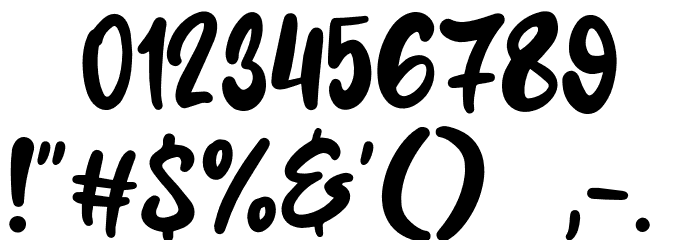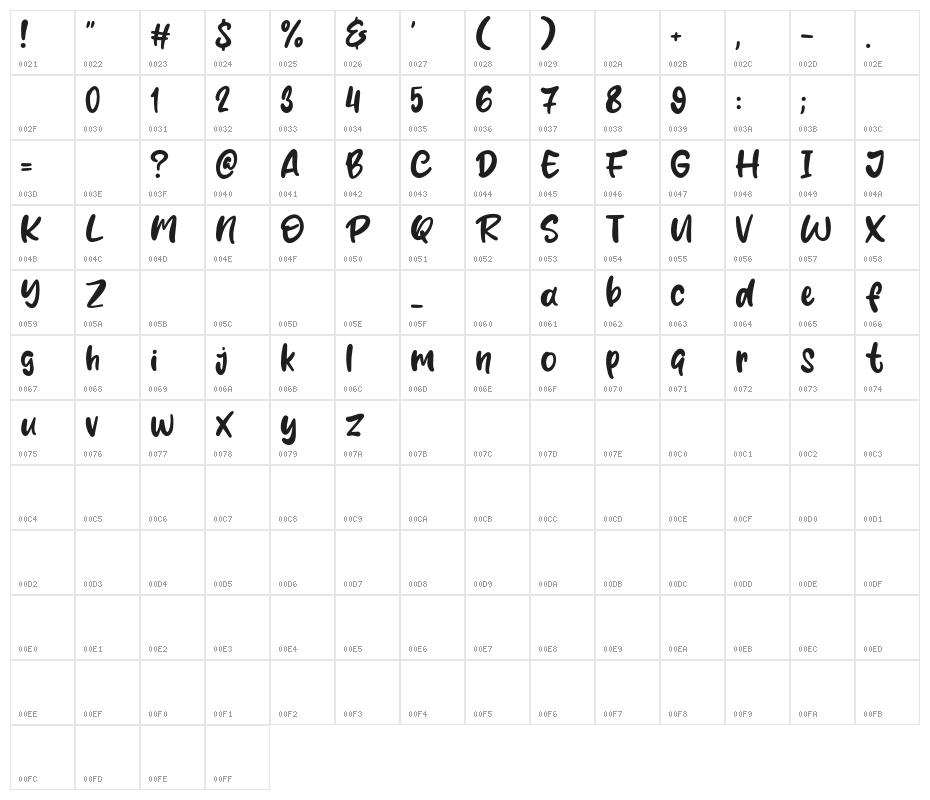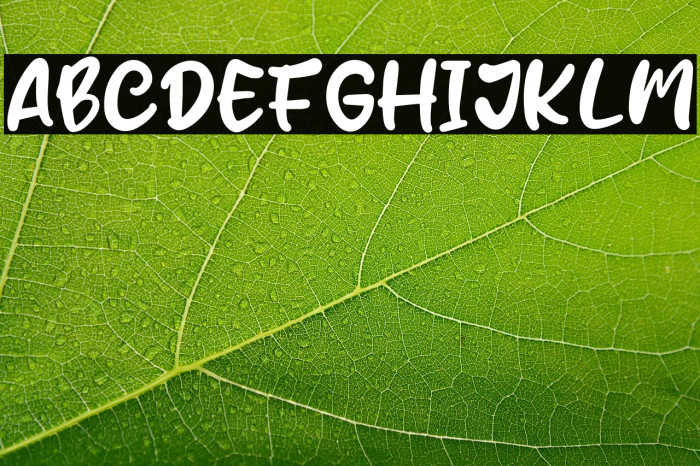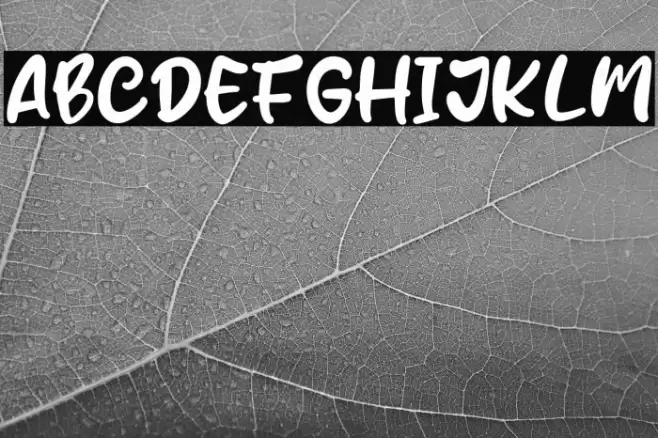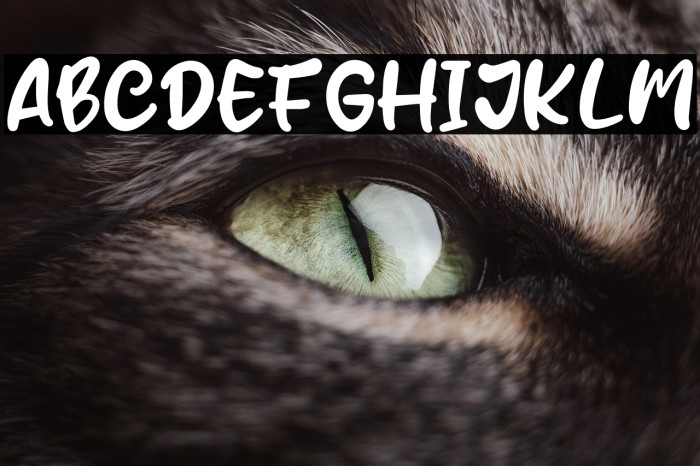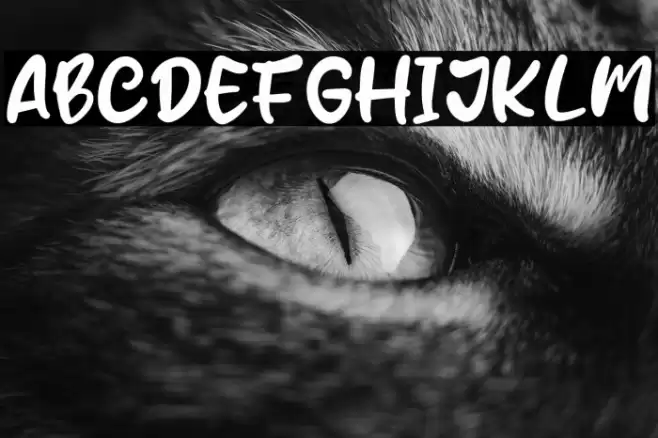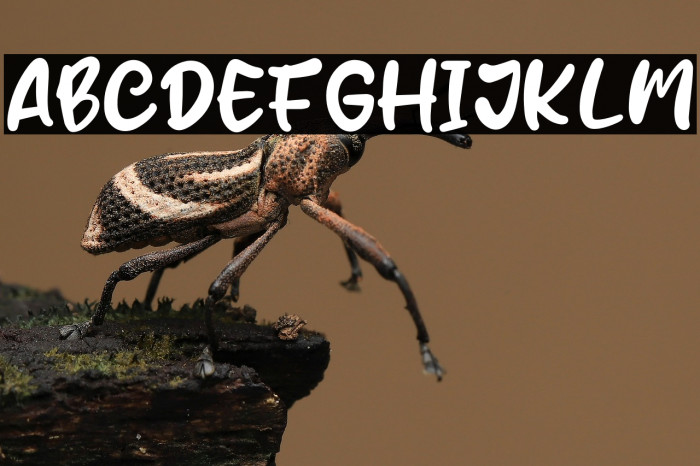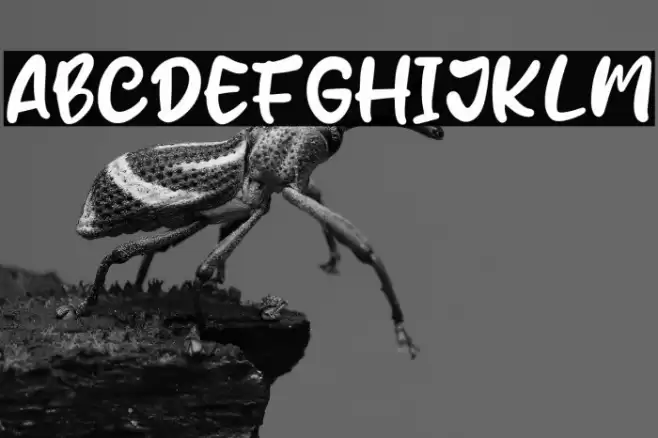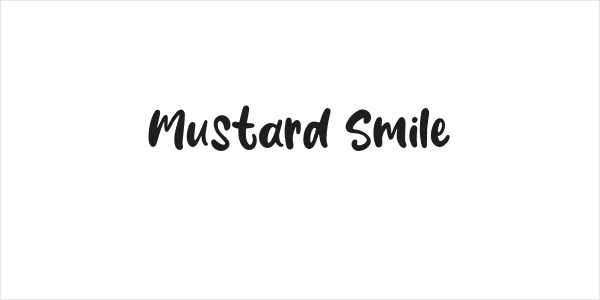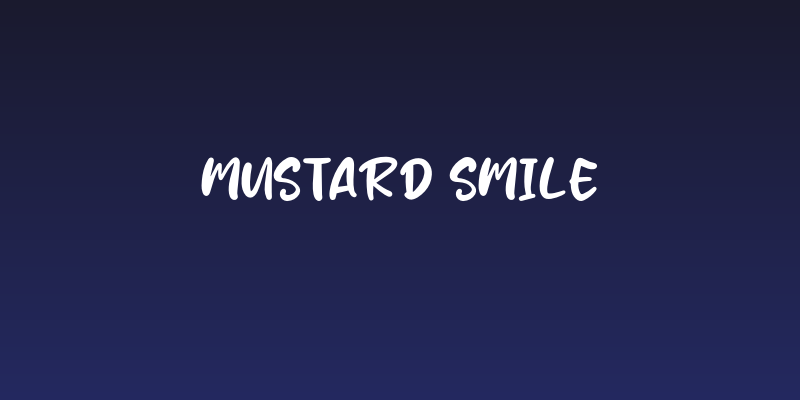
Mustard Smile Font
Mustard Smile Description
This font exudes a playful and energetic vibe with its bold, handwritten style. The letters are rounded and slightly irregular, giving them a casual and friendly appearance. The uppercase and lowercase characters maintain a consistent thickness, contributing to a cohesive look. The numerals and special characters follow the same playful design, making the font versatile for various uses. Its bold strokes and smooth curves make it stand out, ideal for projects that require a touch of personality and warmth. The overall style is modern yet approachable, perfect for capturing attention while maintaining readability.
| Overall Style | Modern, Playful |
| Use Case | Headlines, Logos, Social Media |
| Proposed Projects | Ideal for branding, social media graphics, children's books, and playful invitations. |